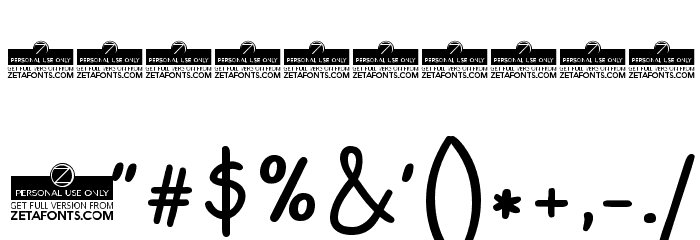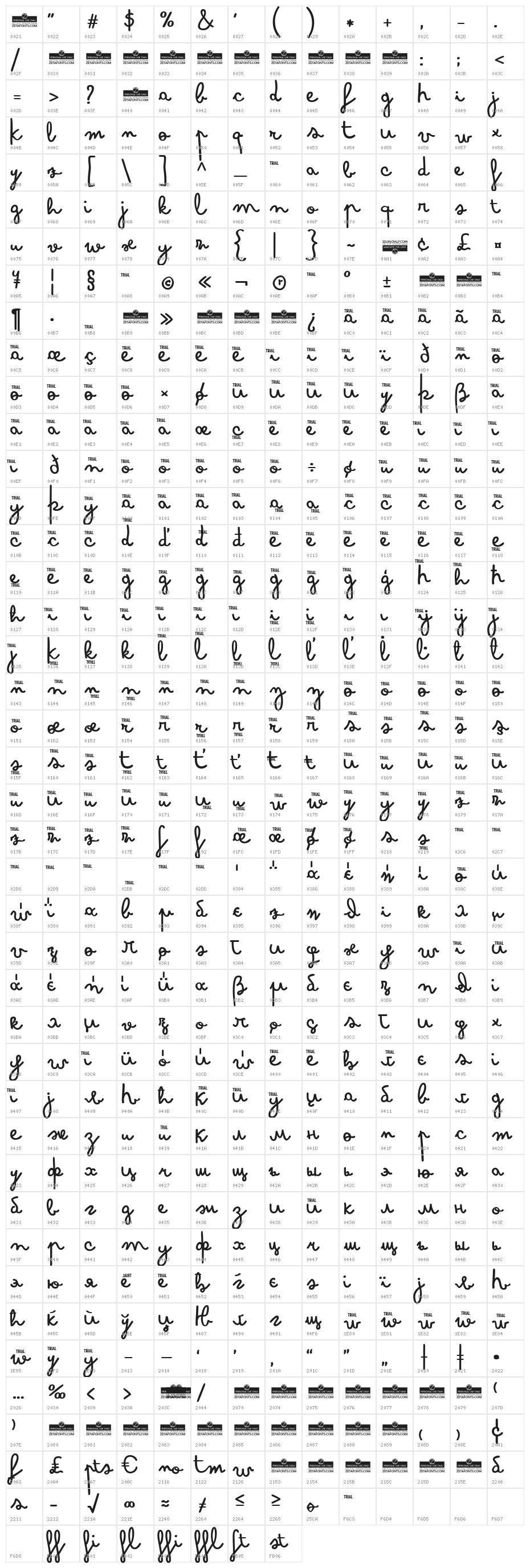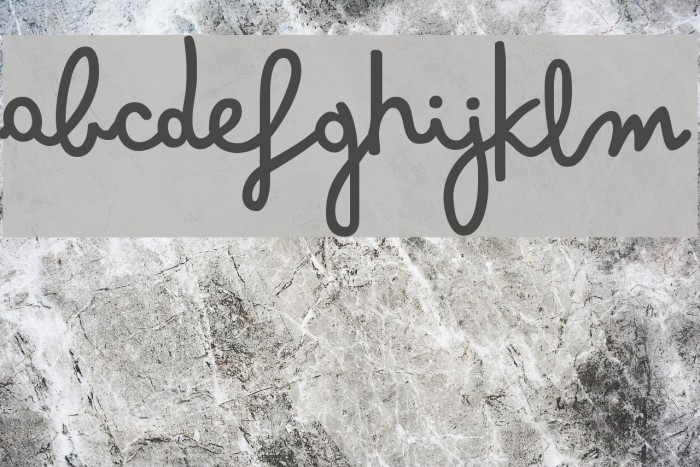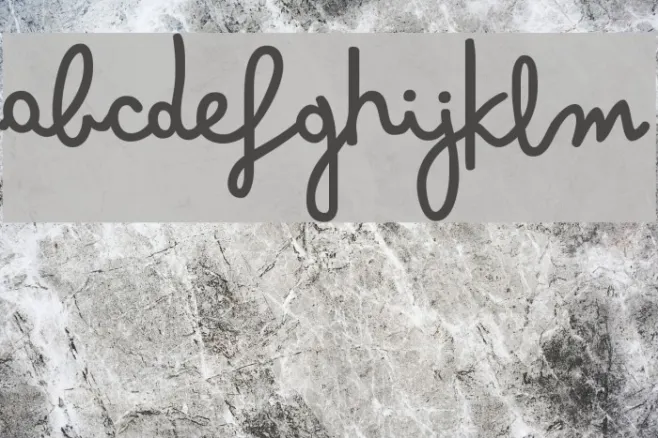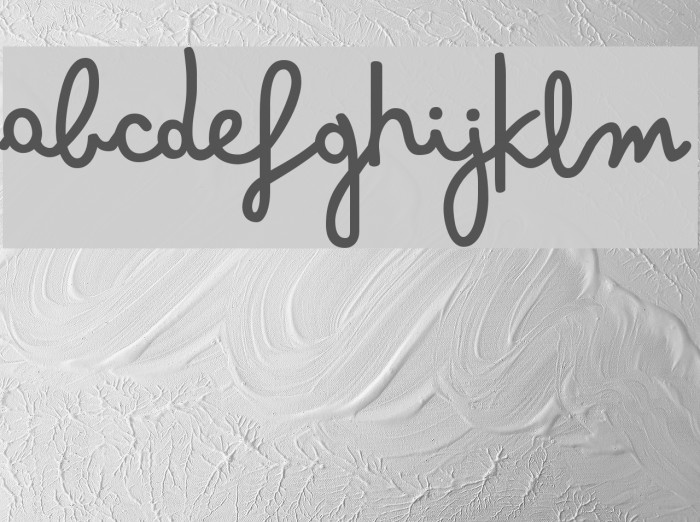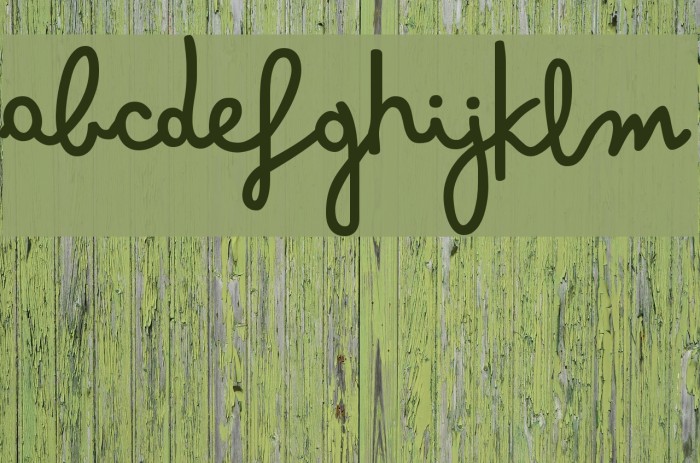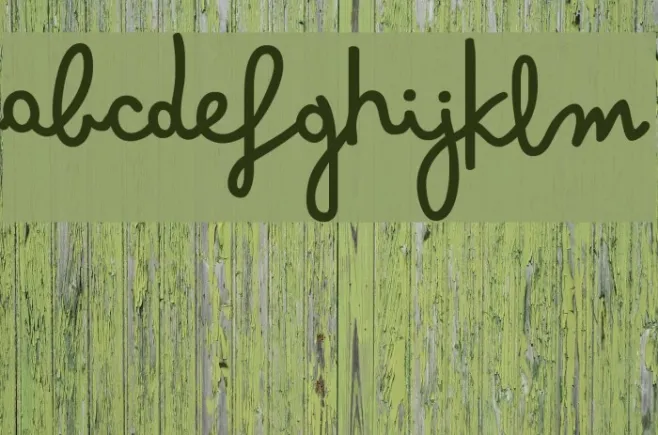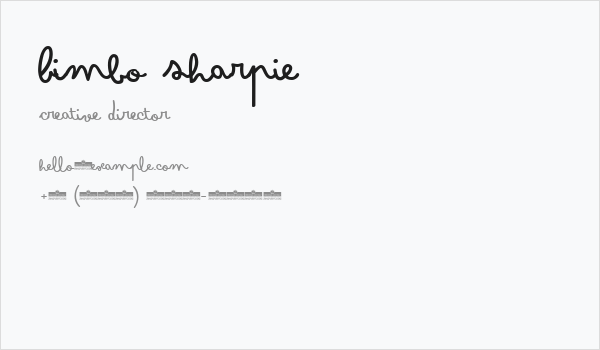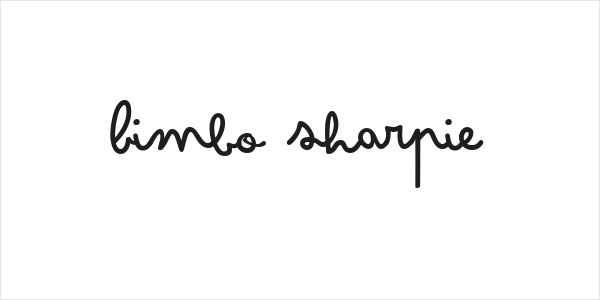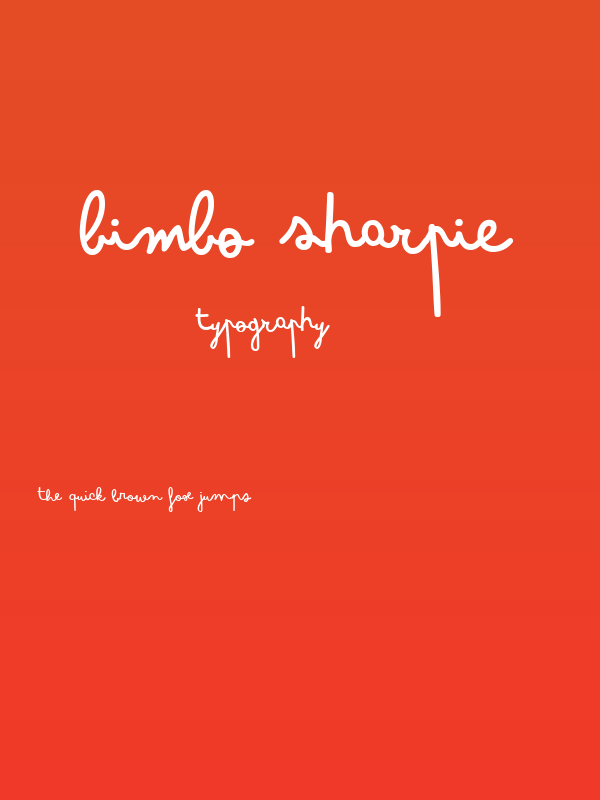
Bimbo Sharpie Font
Bimbo Sharpie Description
This font features a playful and casual handwritten style, reminiscent of writing with a marker or sharpie. The letters are connected in a cursive manner, giving it a fluid and continuous appearance. The strokes are bold and consistent, providing a strong visual impact. The characters are slightly slanted, adding to the informal and relaxed feel. This font includes both uppercase and lowercase letters, numbers, and a variety of special characters, making it versatile for different uses. The overall design is modern and approachable, suitable for projects that require a personal touch.
| Proposed Projects | Ideal for greeting cards, personal branding, social media graphics, and informal invitations. |